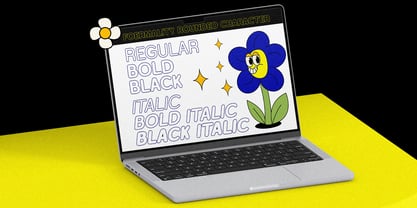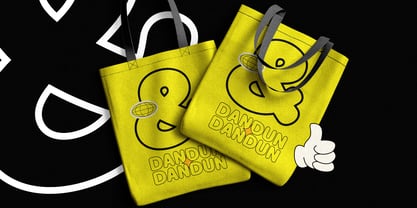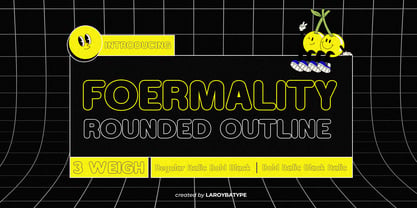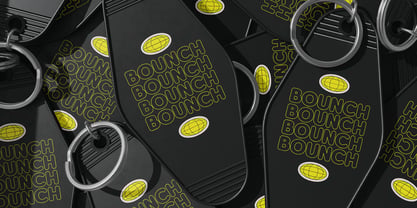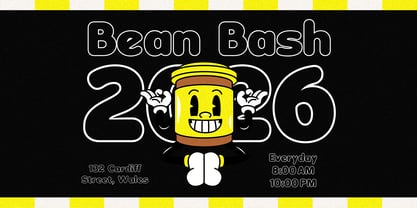
Foermality Rounded Outline
by Laroyba Type
The Foermality Rounded Outline Font Family was designed by Habib Abdur Rofi and published by Laroyba Type. Foermality Rounded Outline contains 6 styles and family package options. More about this family
Foermality Rounded Outline is a playful modern display font featuring soft rounded corners combined with a bold outline structure. Designed to create friendly yet eye-catching typography, this font brings a unique retro-futuristic personality perfect for posters, branding, packaging, entertainment visuals, and creative editorial work.
As part of the Foermality Super Family, this typeface blends geometric balance with smooth rounded forms, resulting in a modern display font that feels energetic, stylish, and approachable.
The family includes:
• 3 Weights: Regular, Bold, Black
• 2 Styles: Regular & Italic
Foermality Rounded Outline performs exceptionally well in large display settings, making it ideal for modern posters, youth branding, Y2K-inspired graphics, playful packaging, music visuals, and social media content.
Perfect for:
Posters, Branding, Packaging, Kids & Youth Design, Social Media, Music Covers, Event Flyers, Gaming Graphics, Editorial Headlines, and Trendy Typography Projects.